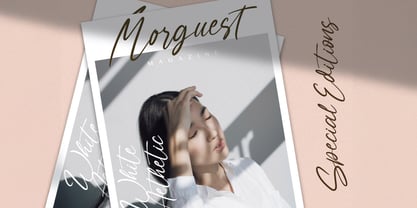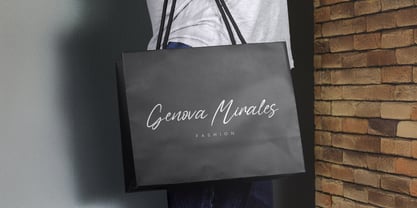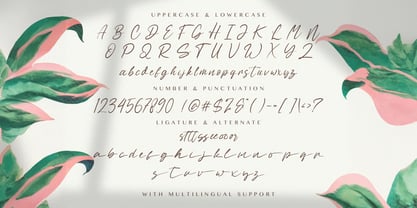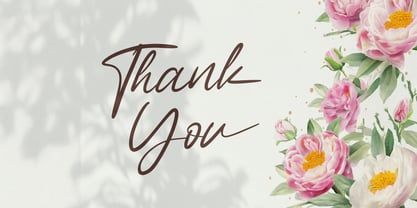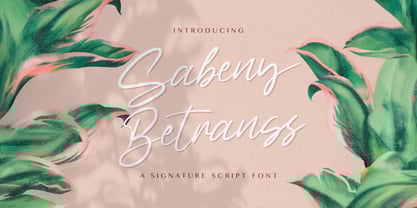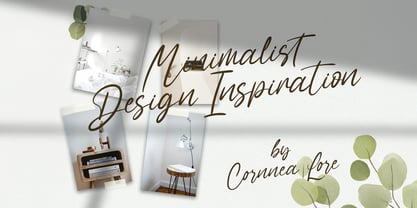
Sabeny Betranss
by Stringlabs Creative Studio
The Sabeny Betranss Font Family was designed by Virgiawan Listanto and published by Stringlabs Creative Studio. Sabeny Betranss contains 1 styles. More about this family
Sabeny Betranss is a casual handwritten font with a fresh and expressive look. Its smooth strokes and effortless flow give your designs a natural, personal vibe perfect for adding a stylish human touch to any creative project. Whether you're crafting logos, quotes, or social media content, Sabeny Betranss brings an authentic and approachable feel that stands out with charm.
Designers: Virgiawan Listanto
Foundry: Stringlabs Creative Studio